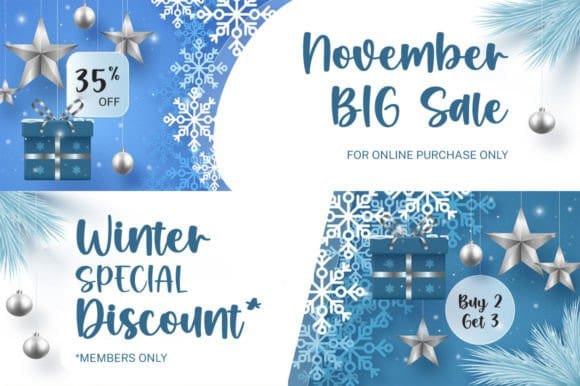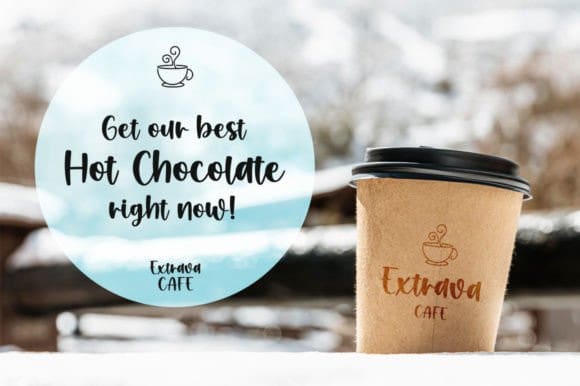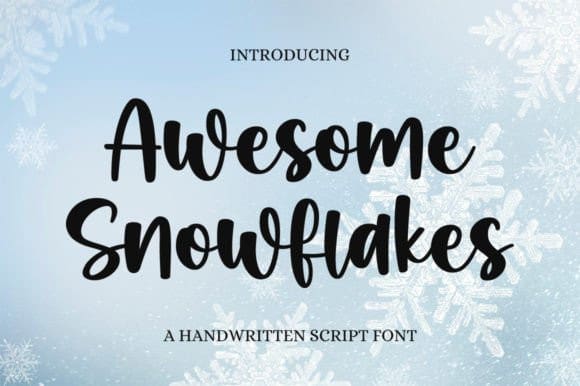
Awesome Snowflakes Font
Awesome Snowflakes Font is a delicate, elegant, and flowing handwritten font. It has beautiful and well-balanced characters and as a result, it matches a wide pool of designs.